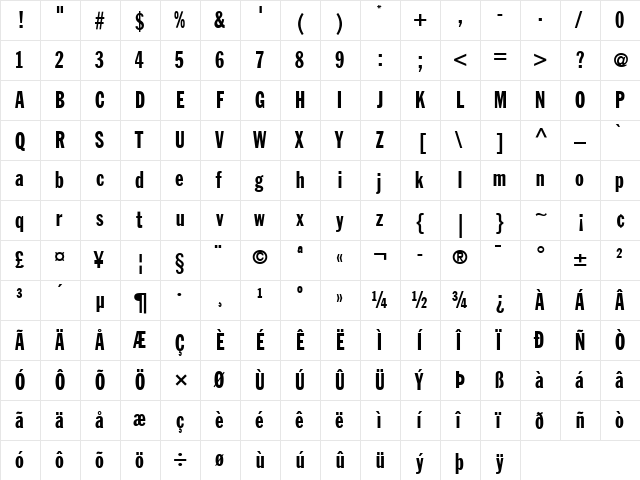
FranklinGothic LT ExtraCond Regular Font Preview
Design Context for FranklinGothic LT ExtraCond Typeface
FranklinGothic LT ExtraCond takes a clean, functional approach — its unadorned letterforms prioritise legibility and work reliably across screen and print environments. Its slender proportions lend an understated elegance to any composition. The condensed width makes it efficient for tight spaces without sacrificing legibility.
A natural fit for high-end product packaging, luxury brand identities, and refined web typography.
Font Pairing: Pair FranklinGothic LT ExtraCond with a medium or bold serif for headlines — the weight contrast creates an elegant, high-end feel.
Pro Tip: Use FranklinGothic LT ExtraCond tightly set in headlines and banners — its condensed proportions make it ideal for maximum impact in minimum horizontal space.